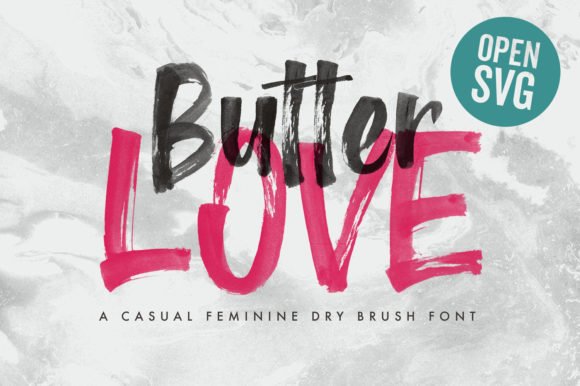
Enter the Butter Love Font, a cool, brushed, and fun display font that’s perfect for a wide range of designs, from t-shirts and sportswear to logos and advertisements. With its playful vibe, this font is sure to add a touch of personality to any project. Whether you’re a seasoned designer or just starting out, the Butter Love Font is an invaluable addition to your toolkit.
Key Features of Butter Love Font
• Font Family: Butter Love Font is a unique, hand-drawn font that features a warm and inviting design.
• Language Support: Supports a wide range of languages, including Latin, Cyrillic, Greek, and more.
• Unique Characteristics: Features a distinctive, hand-drawn style with intricate details and flourishes, making it perfect for creative projects.
Designer Review: Butter Love Font
As a designer, I’ve had the chance to play around with the Butter Love Font, and I have mixed feelings about it. Let’s dive in and see what works well and what doesn’t.
• The font’s unique, quirky feel is definitely a standout. It’s perfect for adding a touch of whimsy to a design project.
• The font is highly customizable, with a wide range of weights and styles to choose from.
• The font is also well-suited for display use, making it great for headings and titles.
• The font can be a bit hard to read in certain contexts, particularly in smaller sizes or with low contrast backgrounds.
• The font’s irregularities can sometimes make it difficult to pair with other fonts, as it can clash with more traditional or serif fonts.
Overall, I think the Butter Love Font is a fun and quirky addition to any designer’s toolkit. While it may have some limitations, its unique feel and high customization options make it a great choice for projects that need a bit of personality. Just be sure to use it thoughtfully and pair it with other fonts that complement its quirky vibe.
Use the Butter Love font for:
• Casual designs, such as social media posts and blog headers.
• Food and beverage branding, as the font has a playful and whimsical feel.
• Handwritten-style text, such as quotes and testimonials.
For the best results, use the Butter Love font in conjunction with other playful and whimsical design elements, such as illustrations and bold colors.
The Butter Love Font includes a comprehensive character set that includes Latin, Cyrillic, and Greek alphabets, as well as a range of punctuation and special characters. The font also supports Unicode characters up to U+10FFFF, ensuring compatibility with a wide range of languages and applications.